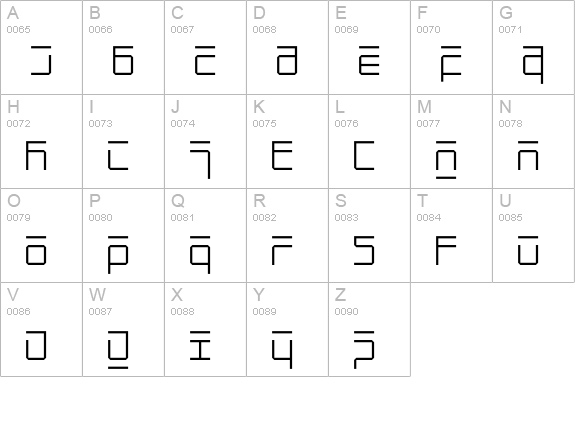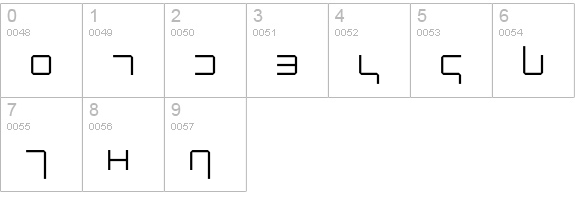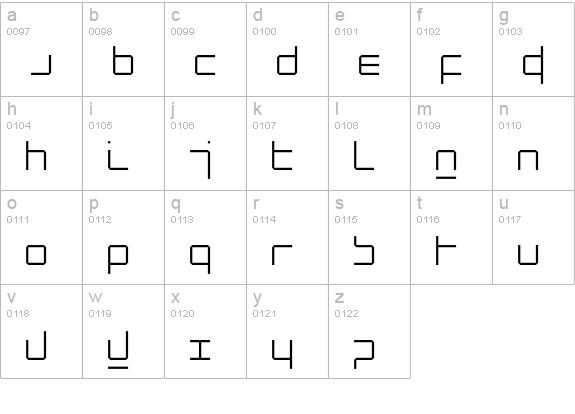
NewAlphabetOne Font Details
Introducing NewAlphabetOne font, a versatile and modern typeface that is sure to elevate any design project. This unique font features clean lines and a sleek aesthetic, making it perfect for a wide range of applications. Whether you're working on branding, packaging, or web design, NewAlphabetOne font is a fantastic choice that will help you stand out from the crowd. What makes NewAlphabetOne font even more appealing is that it is freely available for download at FontsMarket.com. Yes, you read that right - you can get your hands on this stylish font without spending a dime. So why wait? Head over to FontsMarket.com today and add NewAlphabetOne font to your collection. Unleash your creativity and take your designs to the next level with this amazing typeface.